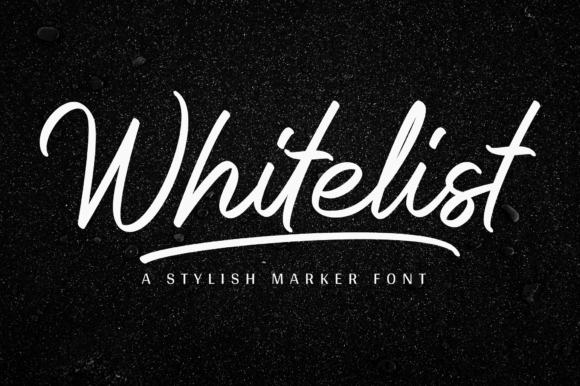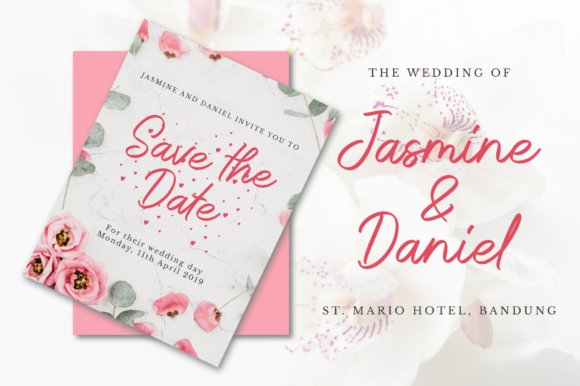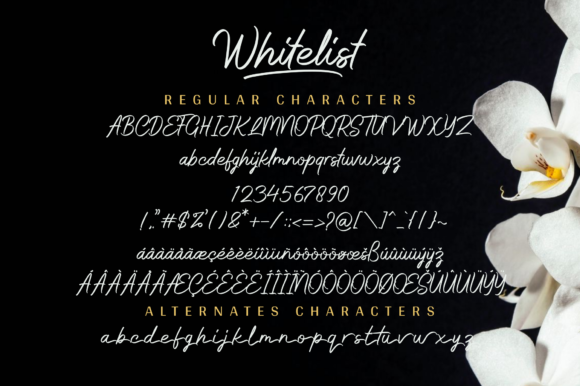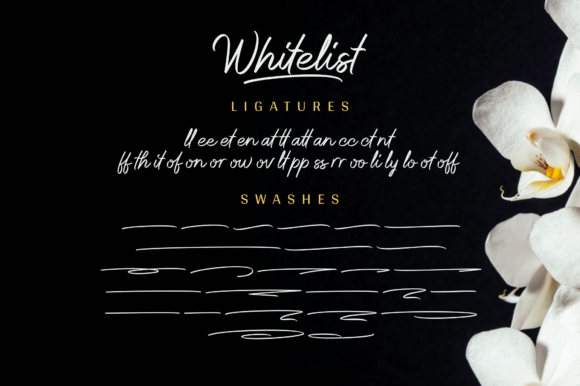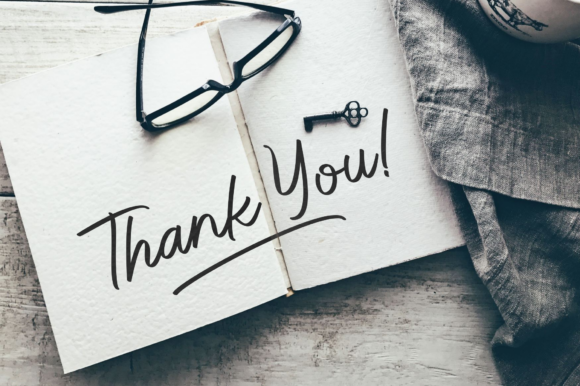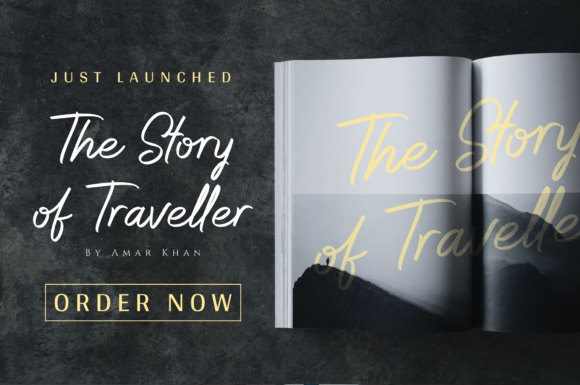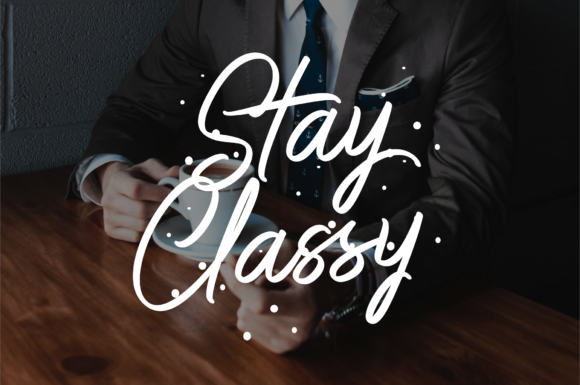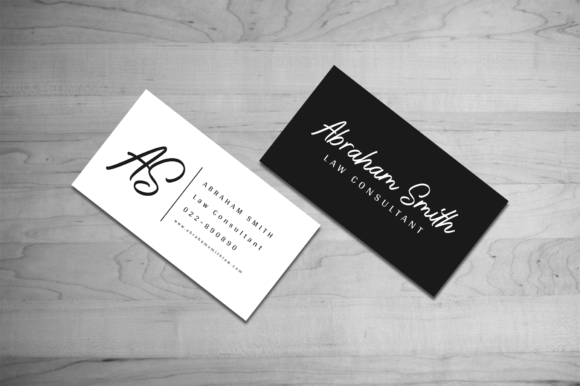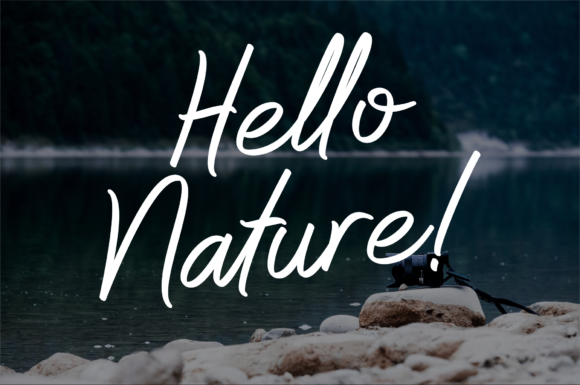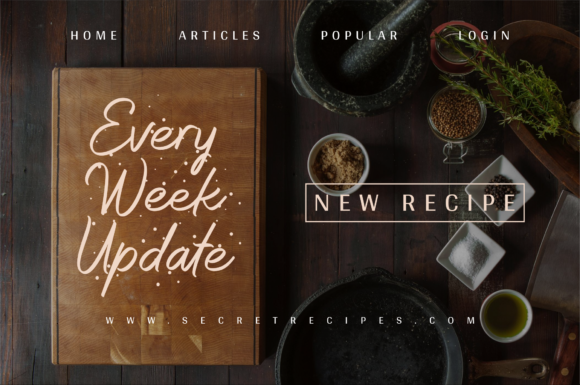
HomeScript FontsWhitelist Font Script Fonts Whitelist Font FacebookXPinterestWhatsApp Whitelist Font Poster 2 Whitelist Font Poster 3 Whitelist Font Poster 4 Whitelist Font Poster 5 Whitelist Font Poster 6 Whitelist Font Poster 7 Whitelist Font Poster 8 Whitelist Font Poster 9 Whitelist Font Poster 10 Whitelist Font Poster 11 Whitelist Font Poster 12 Whitelist Font Poster 13 About Whitelist Font Whitelist is a stylish and elegant marker font that will effortlessly turn any design project into a stand out. DOWNLOAD ON CREATIVE FABRICAThis font is sold and delivered by Creative Fabrica. Font Canyon may earn a commission if you buy through this link. People also explored Cloud Endah Font Porto Alegre Font Tangerang Font Sweet Berries Font Agatha Font Gisellya Font Hattie Font Mighty Slab 389 0 TagsWhitelist Font Previous articleWallacea FontNext articleWax Font LEAVE A REPLY Cancel reply Comment: Please enter your comment! Name:* Please enter your name here Email:* You have entered an incorrect email address! Please enter your email address here Website: Save my name, email, and website in this browser for the next time I comment. Personal Use Free Lover Loves Personal Use Free Read more about this font Doriss Girls Family Personal Use Free Read more about this font Term Free Personal Use Free Read more about this font Stentiga Personal Use Free Read more about this font BLOG Using Fonts in Digital Marketing: Tips to Strengthen Your Brand Identity In the realm of digital marketing, every visual element plays a crucial role in shaping a brand's identity, and fonts are no exception. The... To increase your work productivity, choose the most readable fonts. Exploring Font Trends The 10 Best Handwriting Fonts to Add Personality to Your Designs